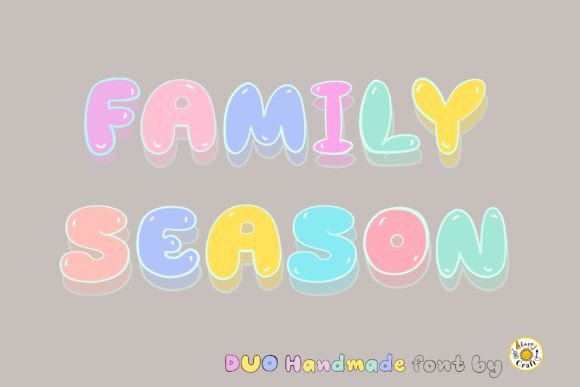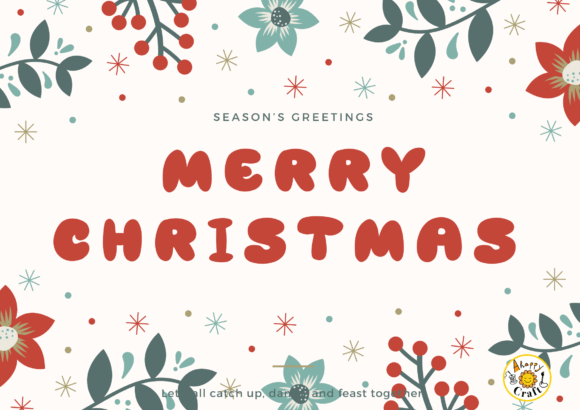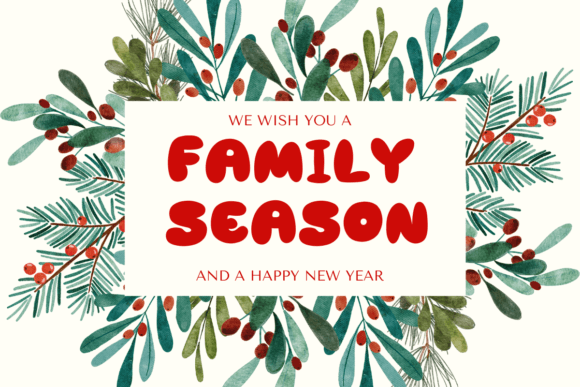
Introduction to Family Season Font
Family Season is a bold, and thick font that will help you create fun and playful designs and will look good on a variety of branding and packaging projects.
With rounded corners and chubby bold looks, brings joy, smiles, and excitement to your upcoming projects It is perfect for posters, game titles, cartoon movies, credit titles, magazines, and so on.
Key Features of Family Season Font